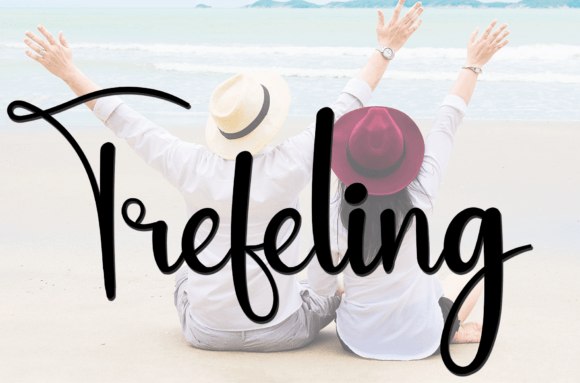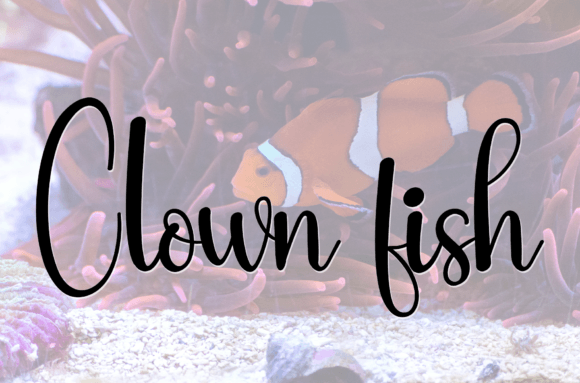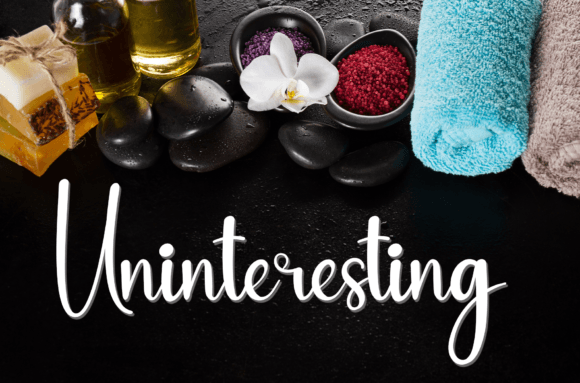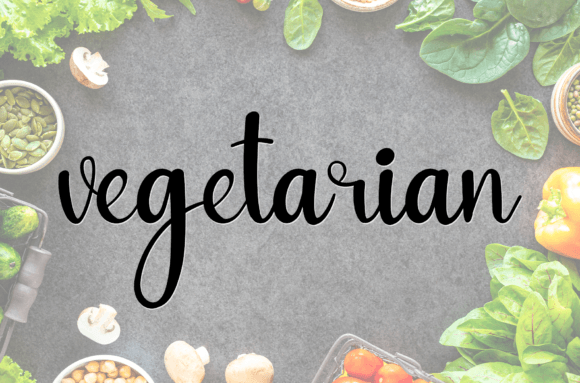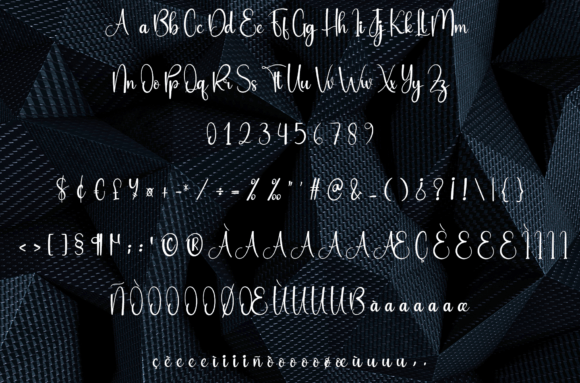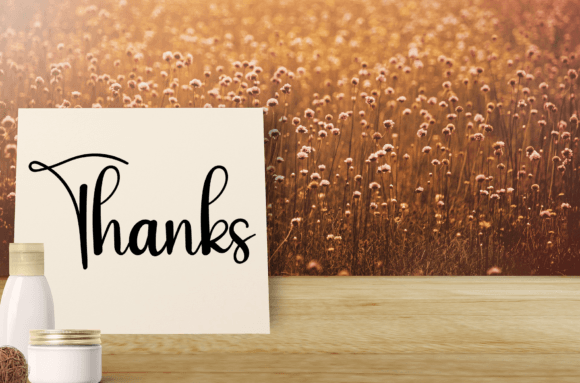
The Evening Font: A Charming Addition to Your Design Arsenal
I’ll never forget the time I was working on a wedding invitation project, and my client asked for a font that exuded elegance and sophistication. I scoured the internet, tried out countless fonts, but nothing seemed quite right. That was until I stumbled upon the Evening Font. Its charming, handwritten aesthetic instantly won me over, and I’ve been hooked ever since.
So, what makes the Evening Font so special? Here are a few things that I absolutely love:
- ✨ Elegant and sophisticated: The Evening Font has a refined, high-end feel that’s perfect for wedding invitations, luxury brands, and other designs that require a touch of class.
- ✅ Versatile: This font can be used for a wide range of design projects, from greeting cards and quotes to logos and business cards.
- 💕 Handwritten charm: The Evening Font has a beautiful, handwritten quality that adds a personal touch to any design.
Of course, no font is perfect, and there are a few quirks to be aware of:
- 🤔 Limited availability of certain characters: Some users have reported that certain characters, such as ligatures, are not readily available.
- ⚠️ May require adjustment for body text: While the Evening Font is stunning for headings and titles, it may not be the best choice for body text due to its elegant, yet slightly ornate, nature.
The Story Behind the Evening Font
The Evening Font was designed by a talented typographer who wanted to create a font that captured the essence of a warm, elegant evening. Inspired by classic calligraphy and handwritten scripts, the Evening Font is a beautiful addition to any design project.
| What type of designs is the Evening Font best suited for? | The Evening Font is perfect for designs that require an elegant, sophisticated touch, such as wedding invitations, luxury brands, and greeting cards. |
| Is the Evening Font suitable for body text? | While the Evening Font is stunning for headings and titles, it may not be the best choice for body text due to its elegant, yet slightly ornate, nature. |
| Is the Evening Font available in different weights or styles? | Currently, the Evening Font is available in a single weight, but it may be available in other weights or styles in the future. |